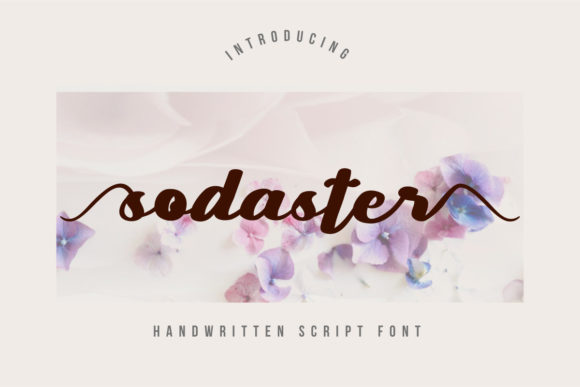
Introducing Sodaster Font, a family of script fonts created by WNGSTD, designed to captivate and inspire. Sodaster is an exquisite fusion of grace and elegance, exuding a timeless quality that will leave you breathless. Prepare to be mesmerized by its delicate strokes and flowing lines, which effortlessly convey a sense of sophistication and charm.Â
This beautiful font was meticulously crafted to provide you with a tool that brings your creative visions to life. Whether you're a seasoned designer or just starting, Sodaster will elevate your designs to new heights. Imagine your words dancing across the page, each letter a work of art, seamlessly blending to create a visual masterpiece. With Sodaster as your partner, you'll create designs that captivate your audience and leave a lasting impression.
Harness the power of Sodaster to transform your creative projects into captivating experiences. Let your imagination soar as you explore the endless possibilities of this versatile font. Elevate your branding, marketing campaigns, and social media presence with a touch of sophistication and flair. Unleash your creativity and let Sodaster guide you on a journey of artistic expression.
With Sodaster PUA encoding, you'll have effortless access to a world of glyphs and swashes, empowering you to add intricate details and flourishes to your designs. Open up a realm of creative possibilities, where your imagination takes center stage and your designs become a reflection of your unique style and vision.